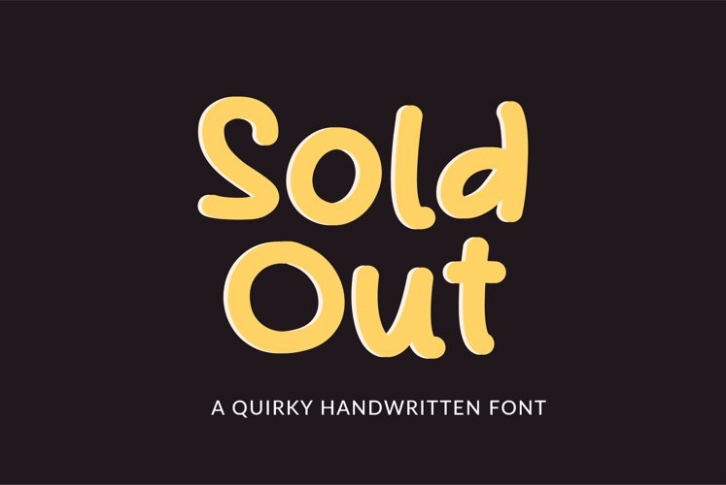
Sold out is a gorgeous font that was realeased on July 8, 2021. The font can be used in many style contexts and design environments. Perfect for invitations, magazines, websites, logos, and more! It was designed by plusstore and the file size is 1.83 MB. Thanks for checking out this font!